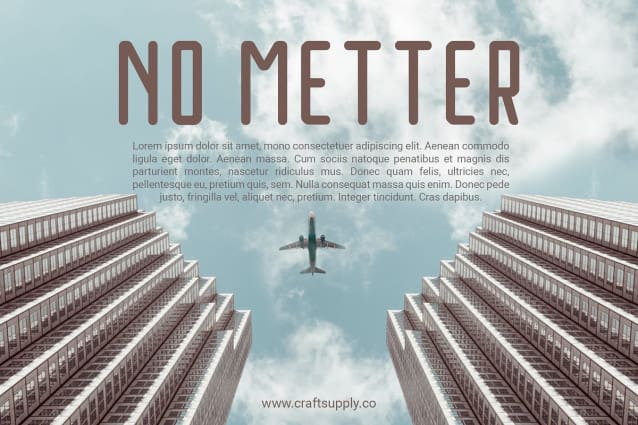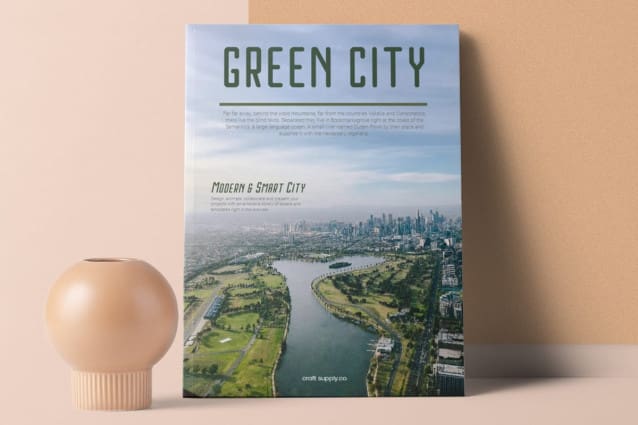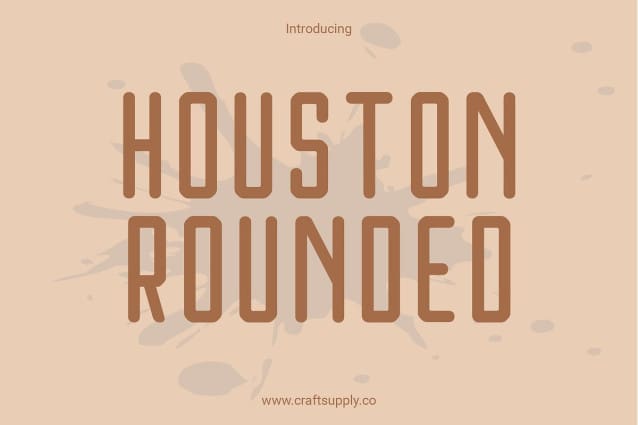
Houston Rounded Font
Houston Rounded Font: Embracing Simplicity. Minimalist Design Houston Rounded features a clean and simple sans serif design, characterized by its low-contrast strokes and rounded edges. Its minimalist aesthetic offers a contemporary appeal suitable for a wide range of design applications.
Smooth and Rounded With its rounded terminals and gentle curves, This font exudes a sense of warmth and approachability. The softness of its letterforms adds a touch of friendliness to any project, making it particularly well-suited for modern branding and digital interfaces.
Versatile Application Designed for versatility, This font is a versatile typeface that adapts effortlessly to various design contexts. From web design and mobile apps to packaging and print materials, its low-contrast, rounded appearance ensures readability and visual harmony across different platforms.
Accessible and User-Friendly This font prioritizes accessibility and user-friendliness, making it an ideal choice for projects that require clear and legible typography. Its rounded shapes and low contrast contribute to enhanced readability, ensuring that your message is easily communicated to a diverse audience.
Simple Elegance This font offers a perfect blend of simplicity and elegance, making it a valuable addition to any designer’s toolkit. With its low-contrast, rounded design, this versatile sans serif typeface brings a modern and approachable vibe to your projects, enhancing readability and visual appeal.